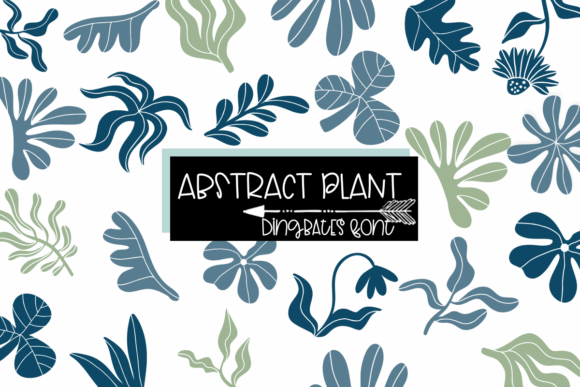
Bring Your Creative Ideas to Life with Abstract Plants Font
Have you ever found yourself staring at a blank canvas, searching for the perfect spark to ignite your creative project? Maybe it’s a wedding invitation, a DIY craft, or a logo design – whatever it is, you want it to be unique and memorable. As designers, we’re constantly on the lookout for that special something to set our work apart from the rest.
Enter Abstract Plants Font, a stunning dingbats font with a sketched theme style that’s sure to bring your creative visions to life. This versatile font is perfect for a wide range of projects, from elegant wedding invitations to quirky DIY crafts and decorations. With Abstract Plants Font, you’ll have the freedom to express yourself in a way that’s both artistic and professional.
Abstract Plants Font Key Features
- Size: The font contains a total of 250 glyphs, including uppercase and lowercase letters, numbers, punctuation marks, and special characters.
- Unique Characteristics: Abstract Plants Font features a unique blend of organic and geometric shapes, creating a distinctive and eye-catching visual effect.
- Language Support: The font supports a wide range of languages, including Latin, Cyrillic, and Greek scripts, making it suitable for international designs.
- Font Style: Abstract Plants Font is available in a single font style, but it can be used to create various effects by adjusting font sizes, colors, and combinations with other fonts.
Designer Review: Abstract Plants Font
Overall, I found the Abstract Plants Font to be an interesting addition to the world of typography. Here are some of its standout features:
- ✨ Unique and creative design that stands out from traditional font styles
- ✨ Great for adding a touch of whimsy and playfulness to designs
- ✨ Works well for titles, headings, and other emphasis-based text
- ⚠️ May not be suitable for large blocks of text due to its abstract nature
- ⚠️ Can be difficult to read in certain contexts, particularly for those with visual impairments
- ⚠️ May require additional design elements to compensate for its unconventional style
My overall impression is that the Abstract Plants Font is a great choice for designers looking to add some personality to their work. While it may not be suitable for all applications, it’s a fun and creative option to consider when the right project comes along.
For the best results, use the Abstract Plants Font for designs that require a unique, artistic feel.
1. Branding and logos.
2. Print and digital advertising.
3. Packaging design.
4. Social media graphics.
Alternatives to Abstract Plants Font
1. Organic Grotesque
Organic Grotesque is a sans-serif font that features natural, hand-drawn elements, giving it a unique, organic feel. It’s perfect for designs that require a modern, yet earthy aesthetic. Unlike Abstract Plants Font, Organic Grotesque has a more legible and readable structure, making it suitable for body text as well as headings.
2. Floralia
Floralia is a script font that combines elegant, flowing lines with delicate floral elements. It’s ideal for designs that require a touch of sophistication and romance. Compared to Abstract Plants Font, Floralia has a more refined and intricate design, making it suitable for luxury brands, weddings, and other high-end applications.
3. Wildseed
Wildseed is a sans-serif font that features bold, geometric shapes with organic elements. It’s perfect for designs that require a modern, edgy aesthetic. Unlike Abstract Plants Font, Wildseed has a more energetic and dynamic feel, making it suitable for fashion brands, tech companies, and other trendy applications.
4. Handmade Script
Handmade Script is a script font that features natural, handwritten elements with a touch of imperfection. It’s ideal for designs that require a personal, human touch. Compared to Abstract Plants Font, Handmade Script has a more casual and approachable feel, making it suitable for small businesses, startups, and other informal applications.